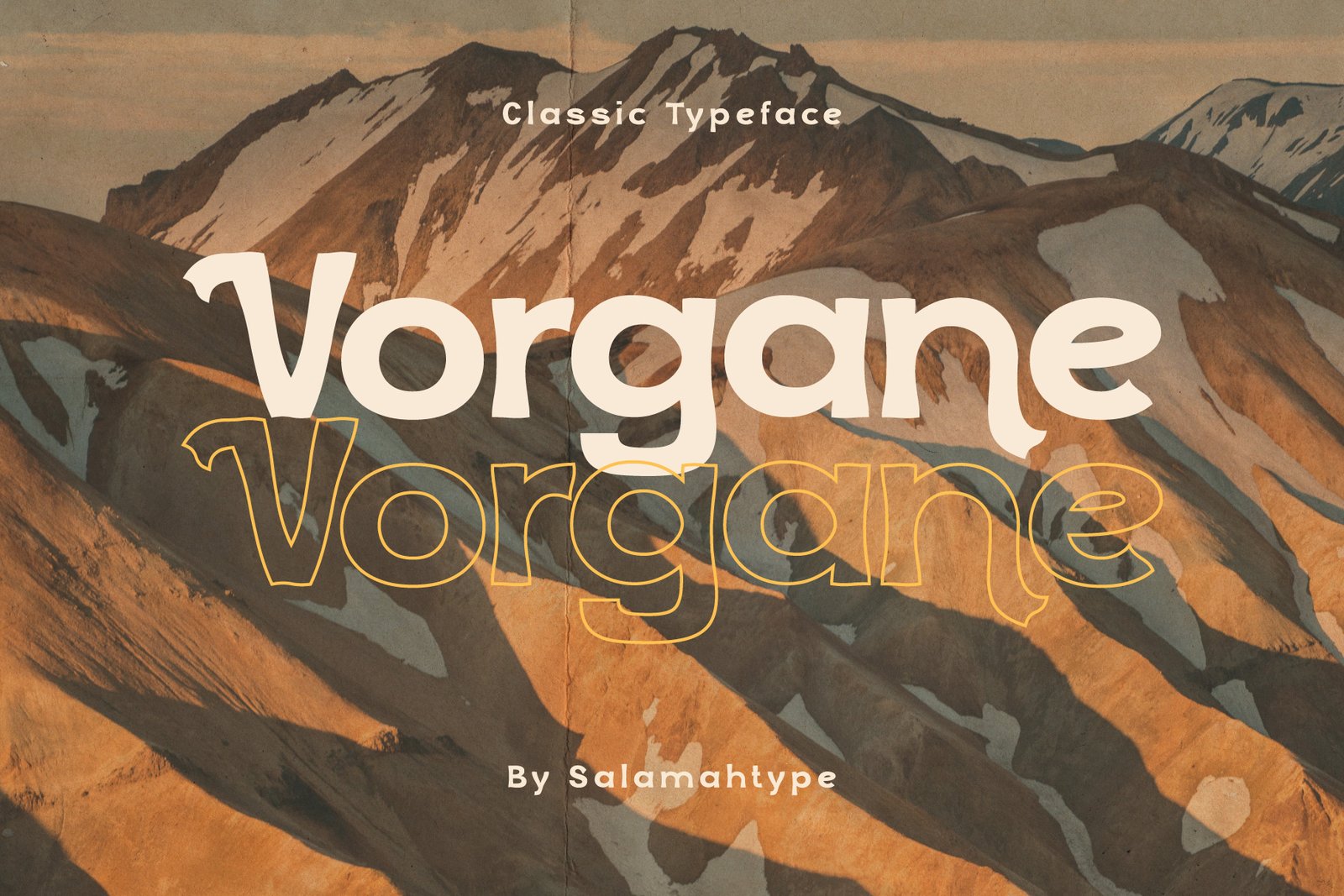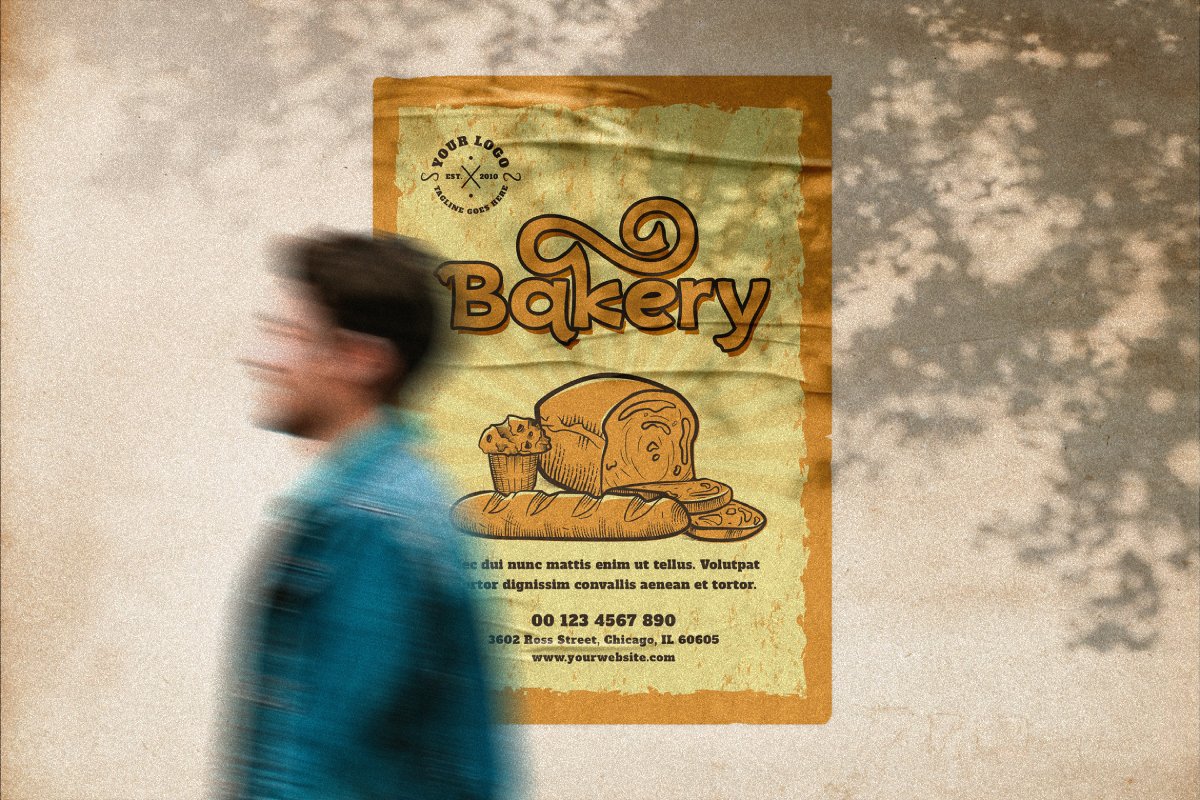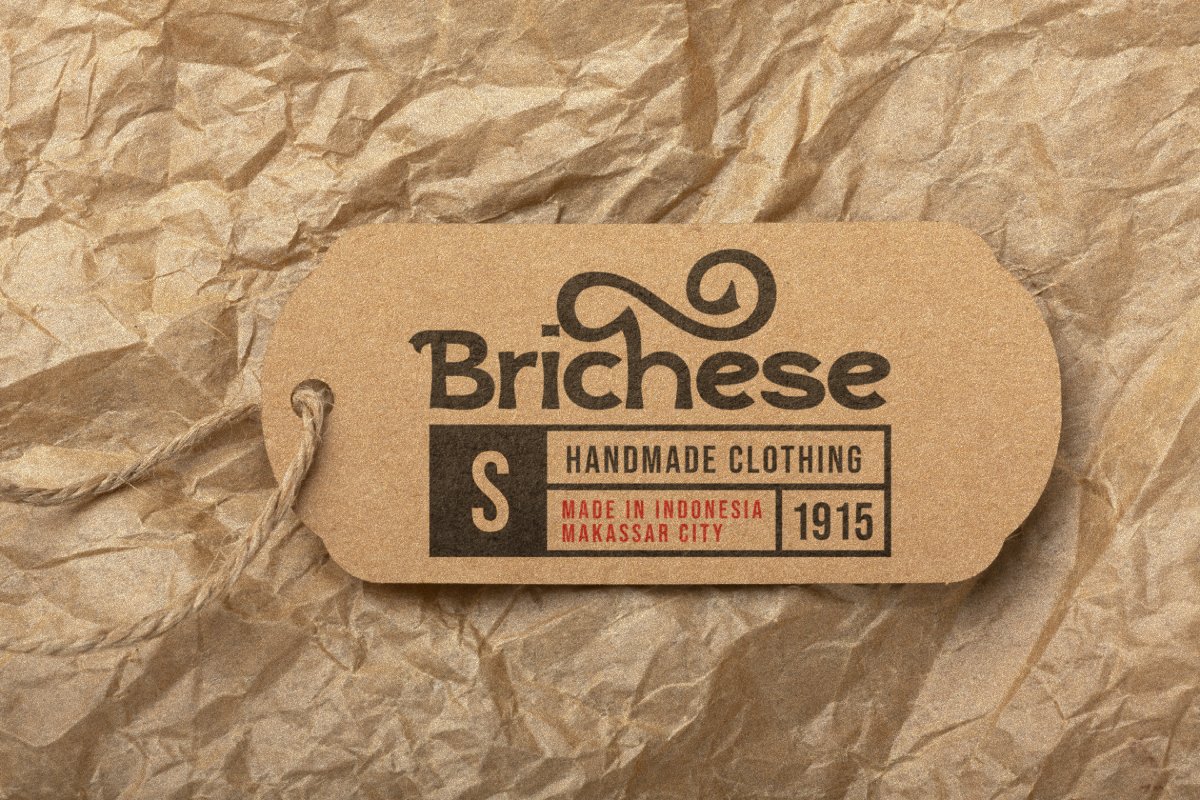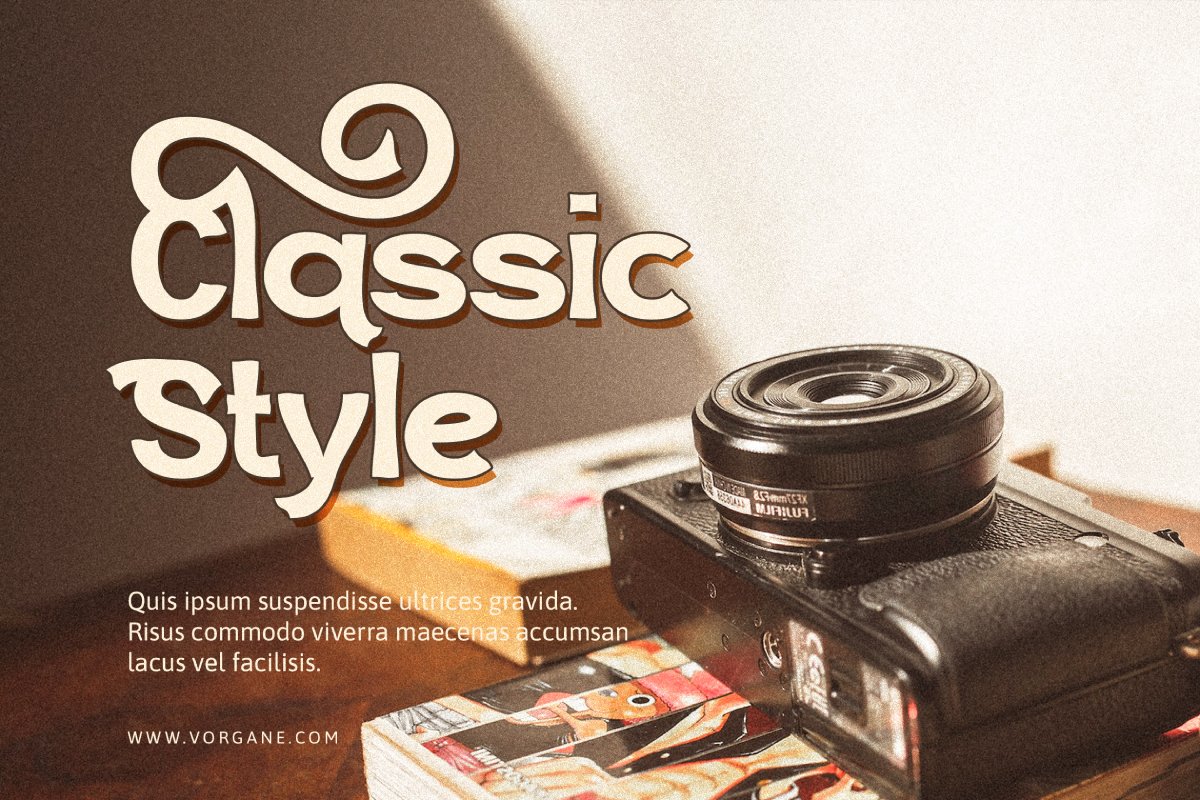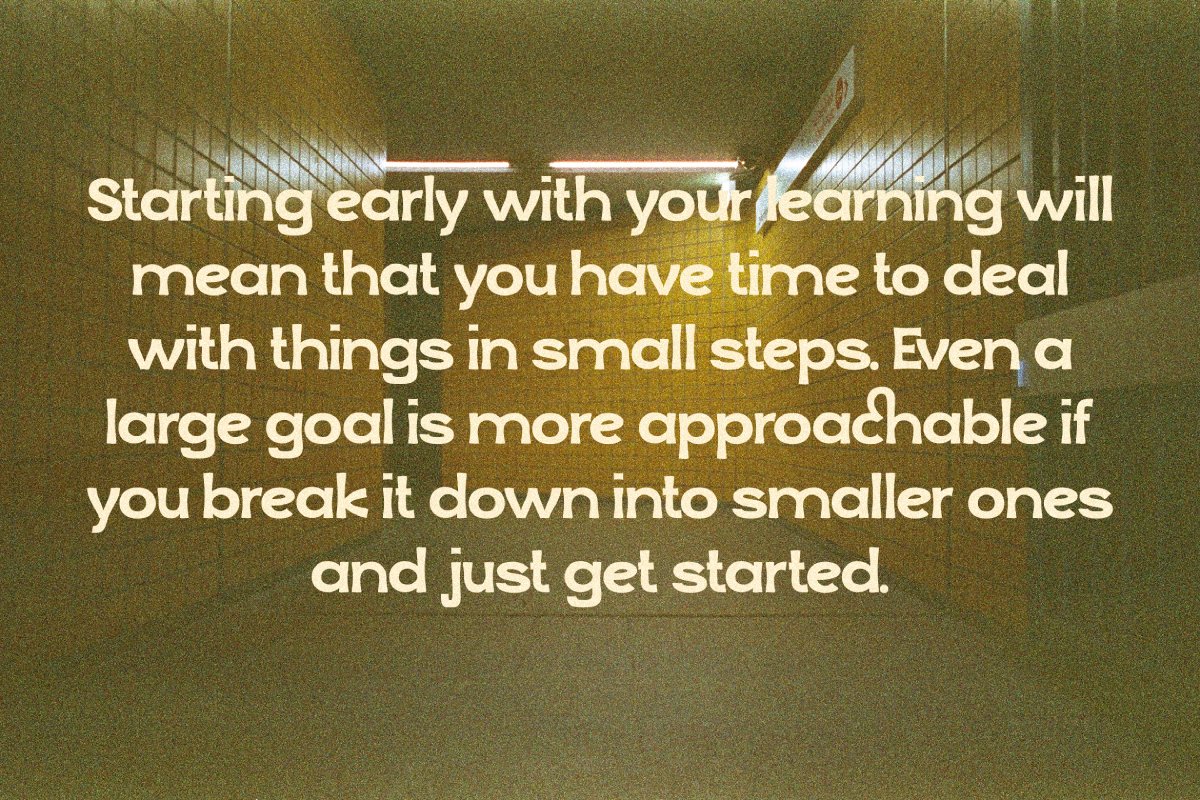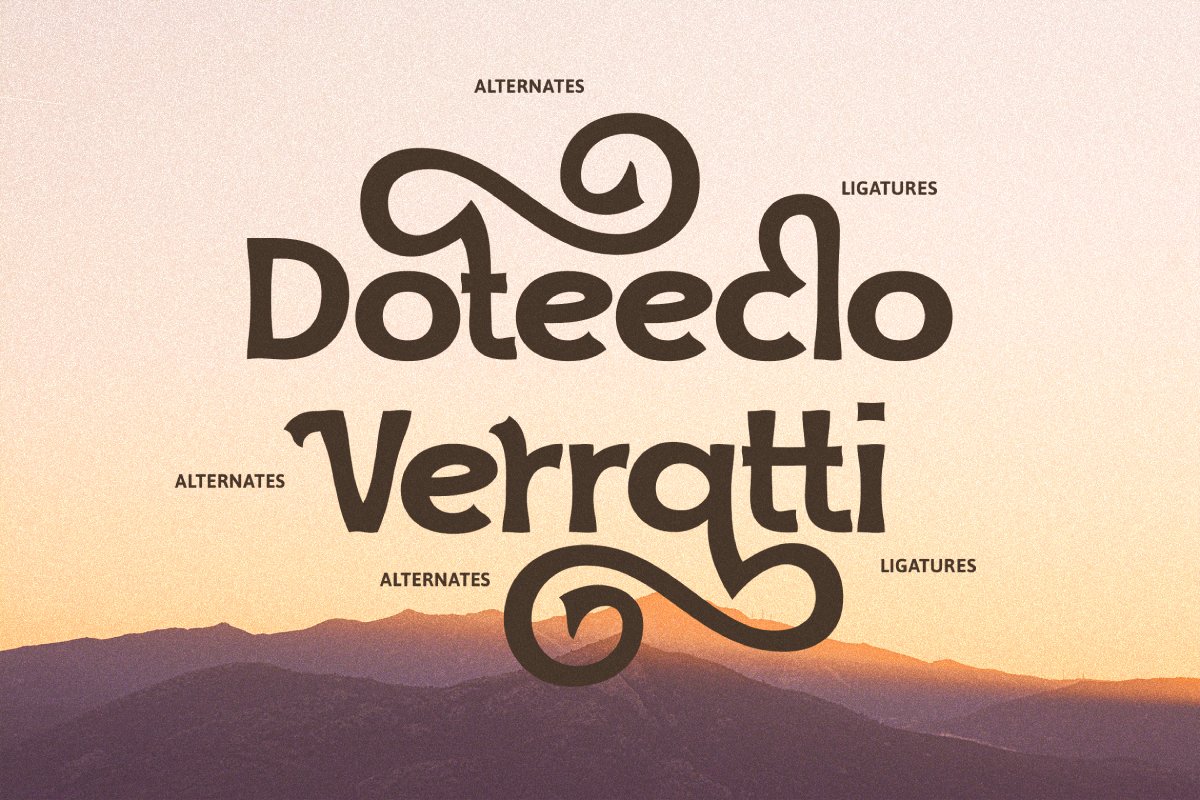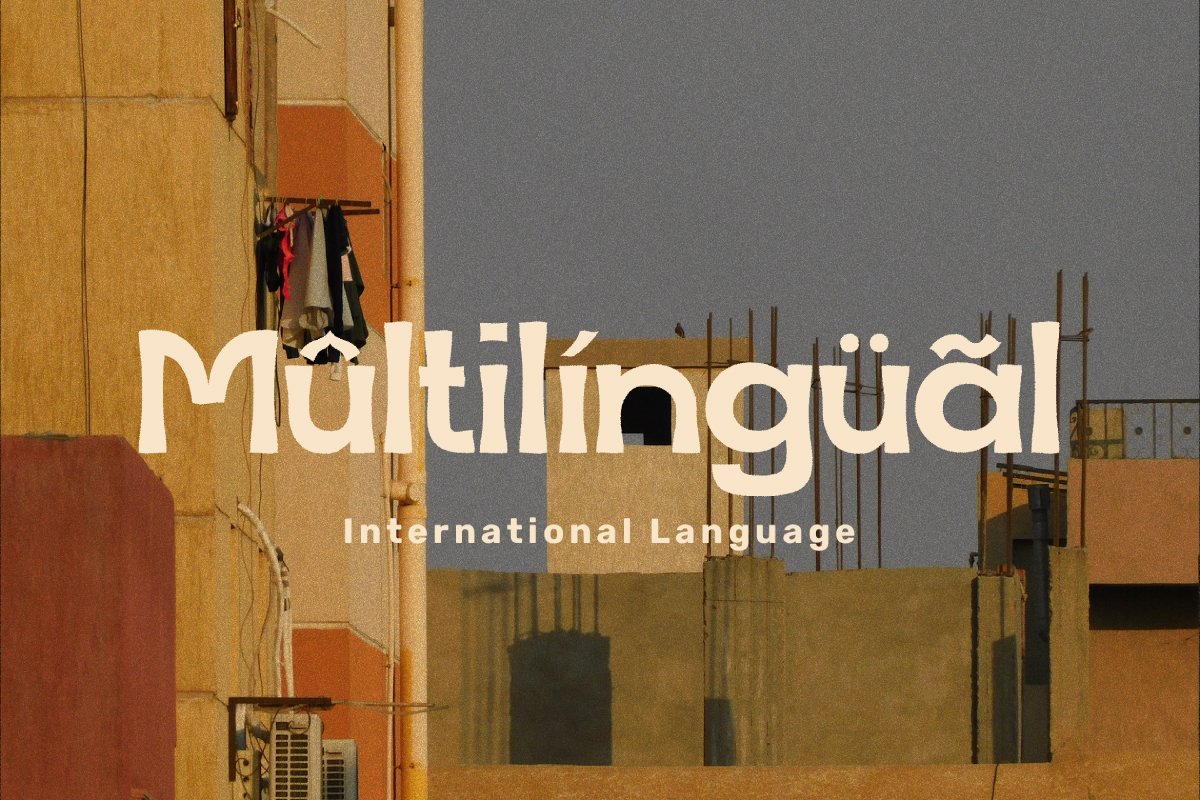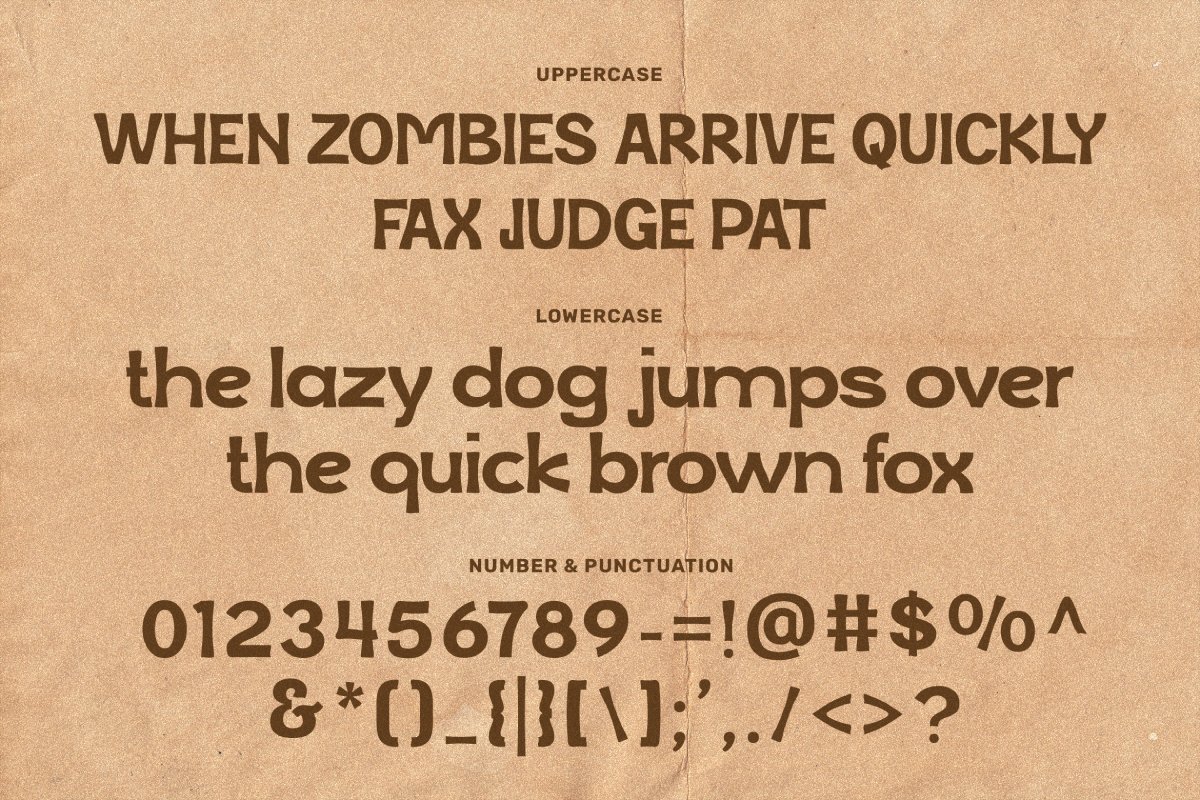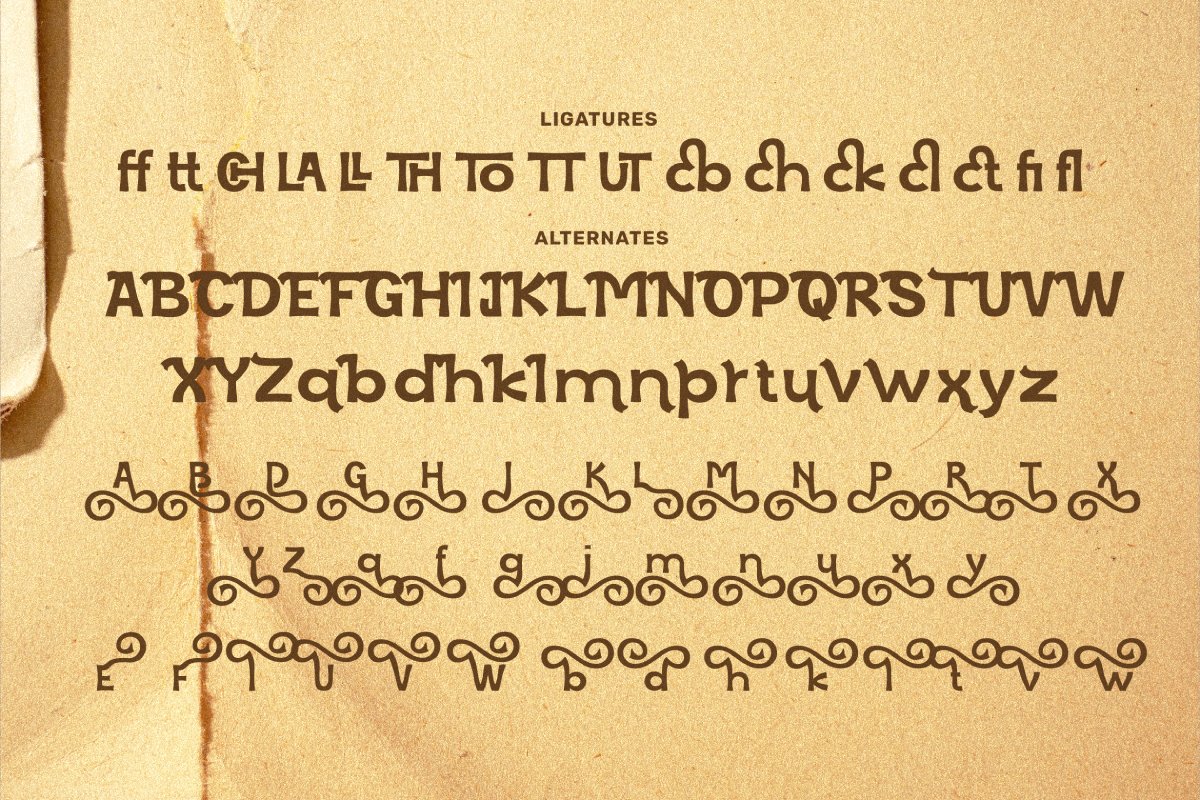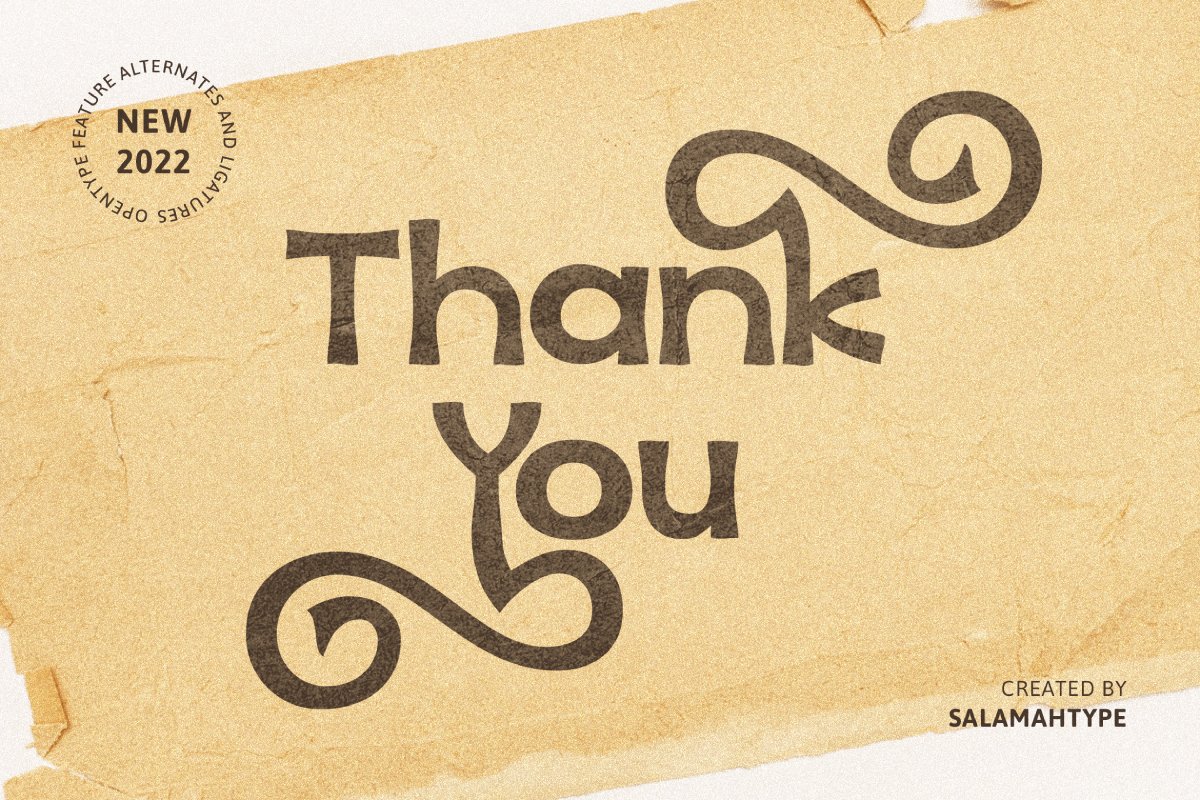
- Uppercase & lowercase
- Punctuation & symbol
- Ligatures
- Alternates
- Multilingual characters
Vorgane Vintage Font
About the Font
Introducing our font called “Vorgane” – a vintage typeface in classic style and also has ligatures and alternates. This font is perfect for websites, logos, product packaging, branding projects, product designs, label and more.Features :